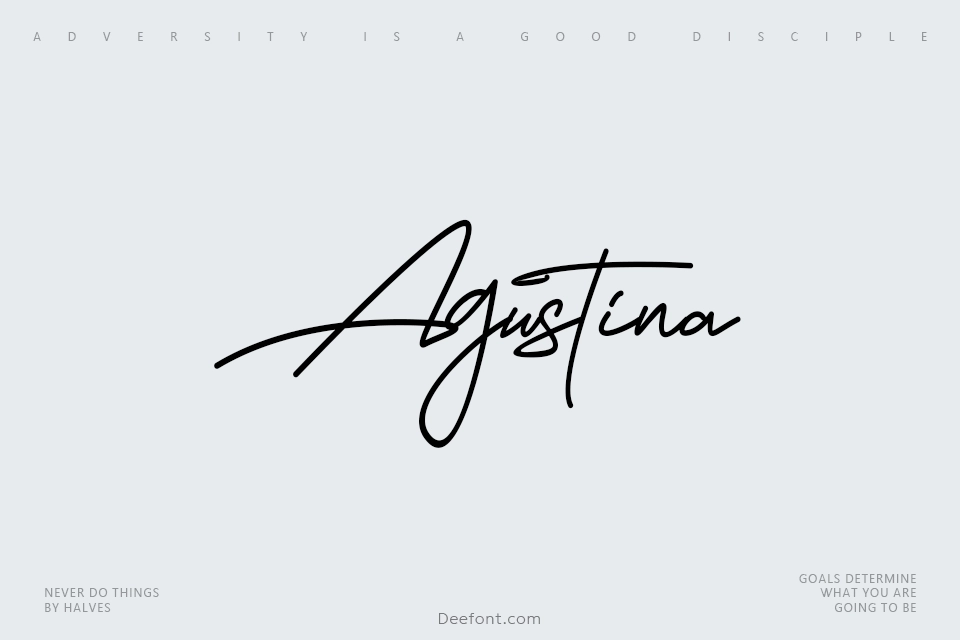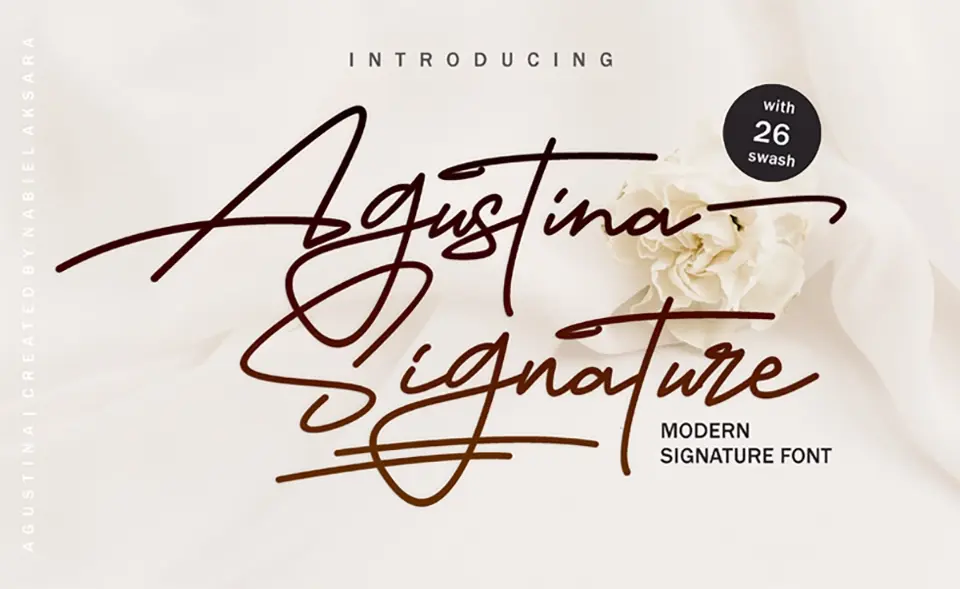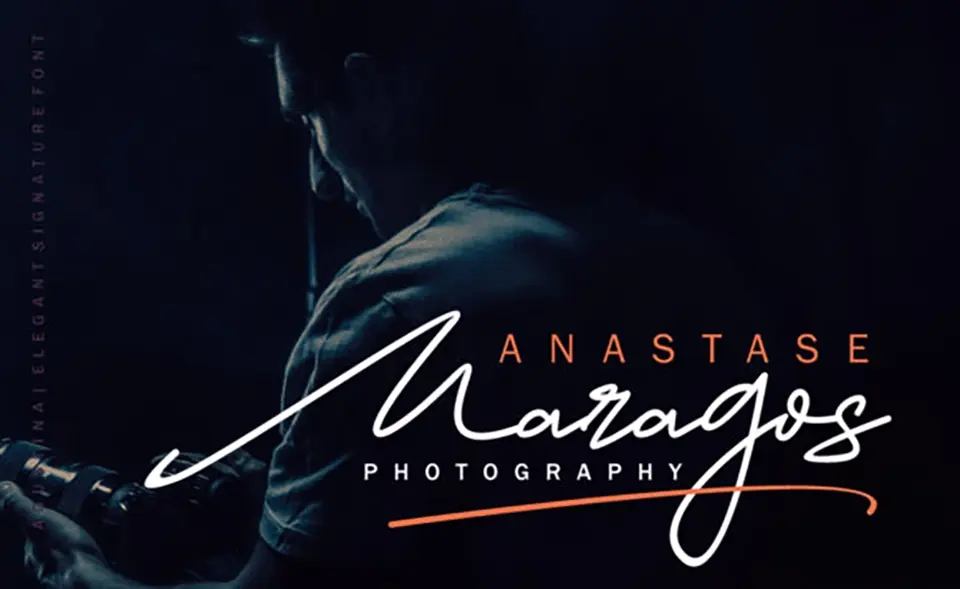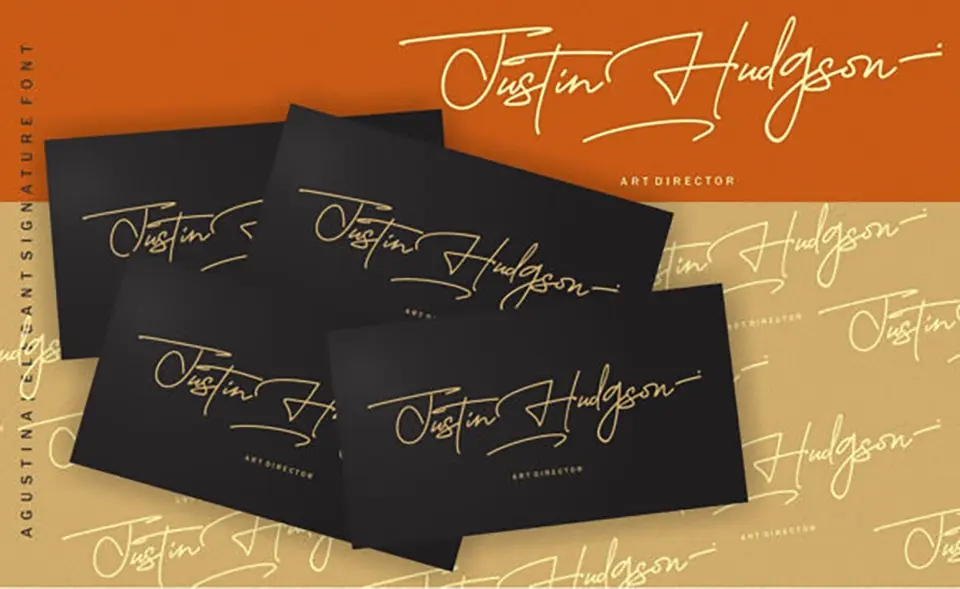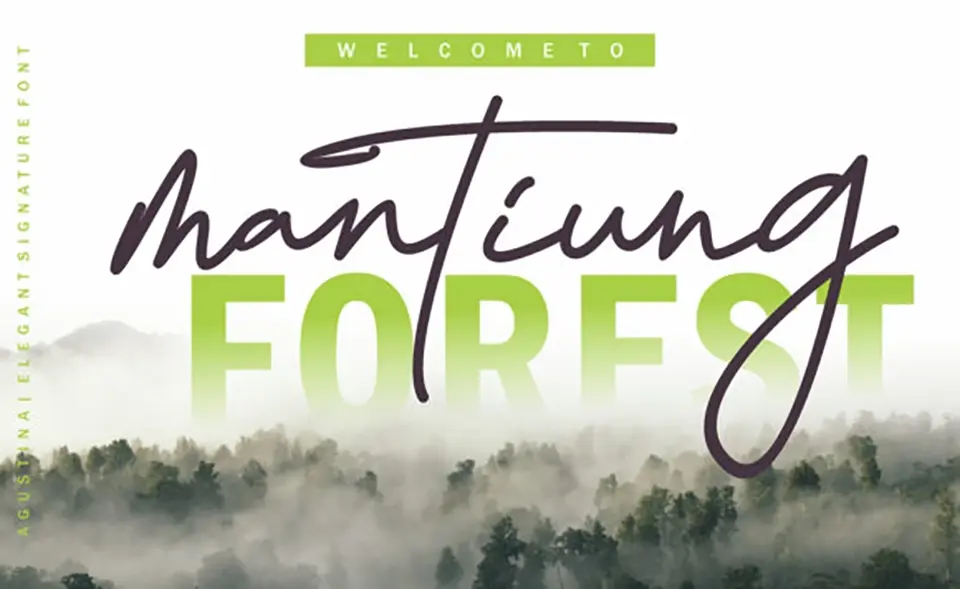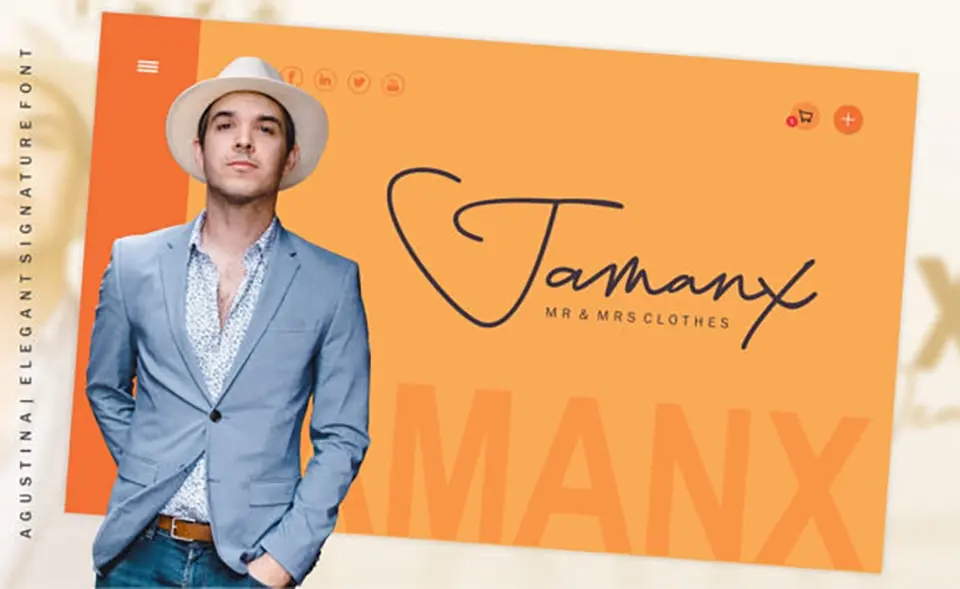
Agustina Font
Agustina is an elegant handwritten script font that combines romantic curves with sophisticated charm. This versatile typeface features smooth, flowing letterforms perfect for creating stunning typography across various design applications. Whether you’re designing wedding invitations, creating brand logos, or crafting social media graphics, Agustina delivers a touch of luxury and artistic flair to every project. The font’s delicate yet confident strokes make it an excellent choice for designers seeking a balance between grace and strength.